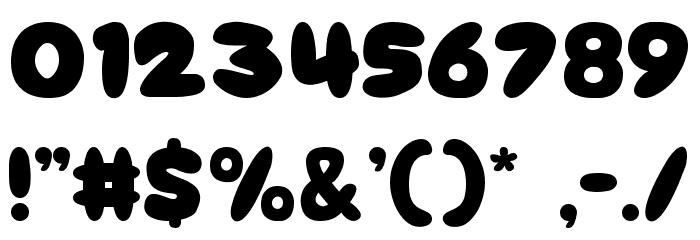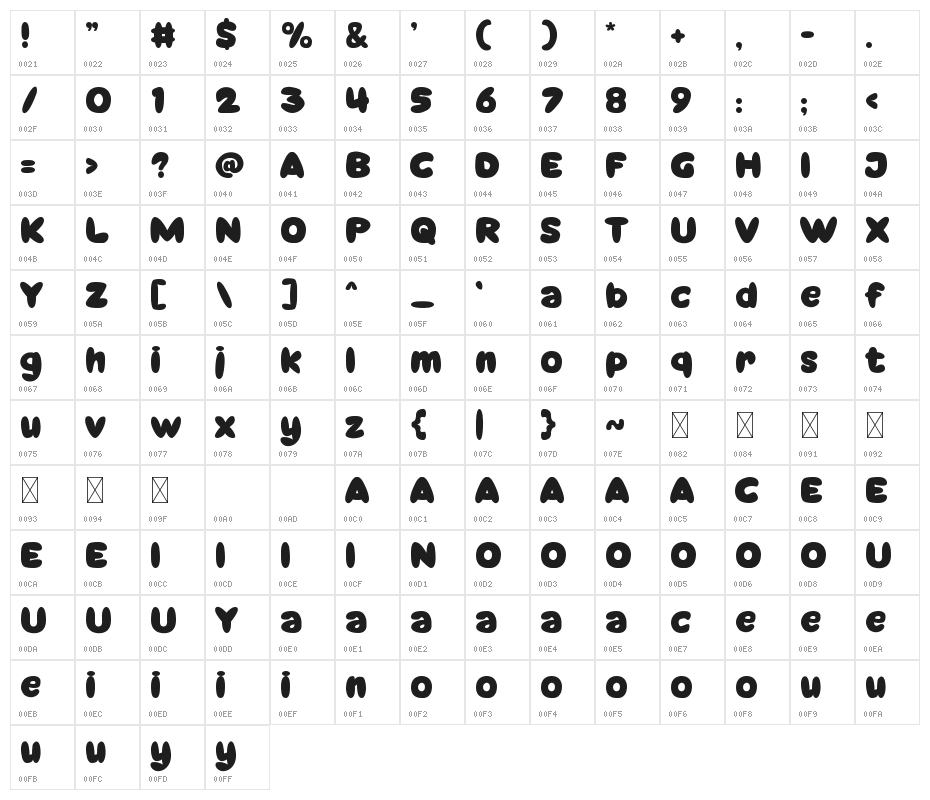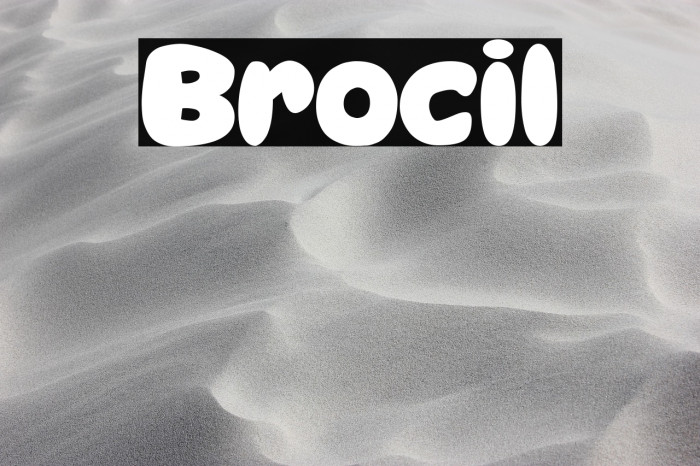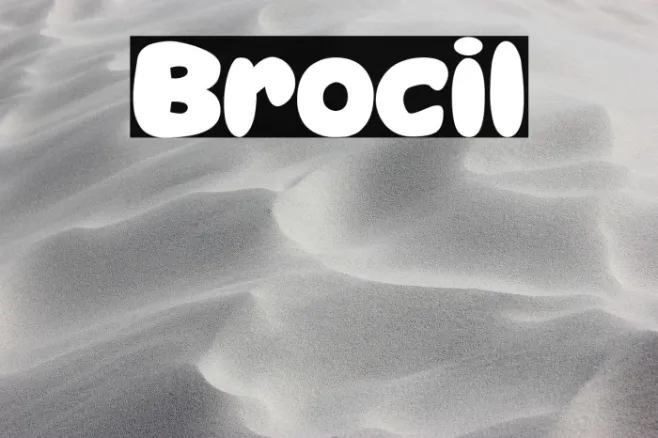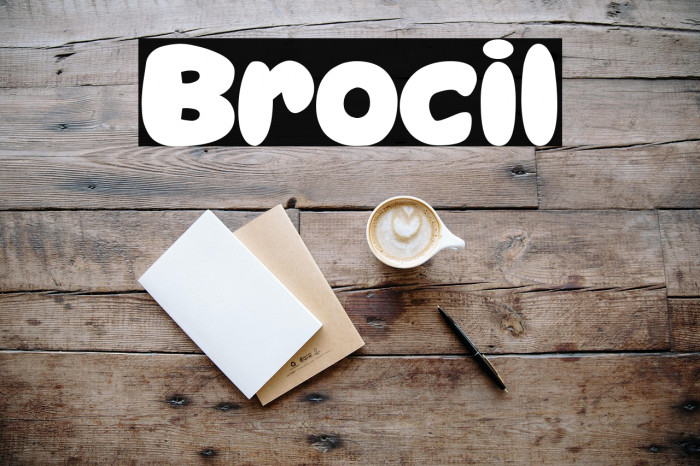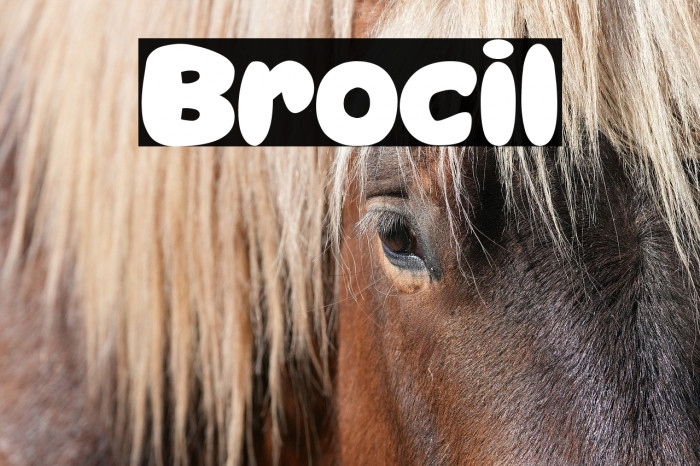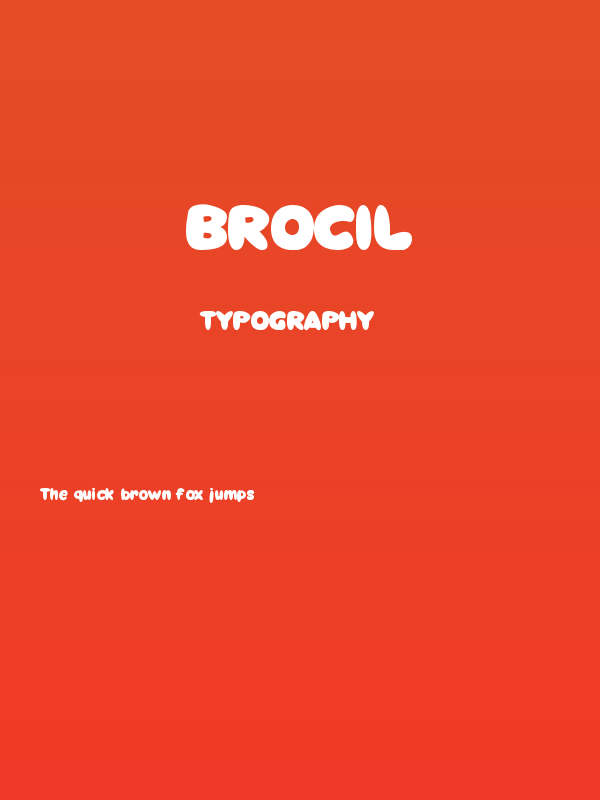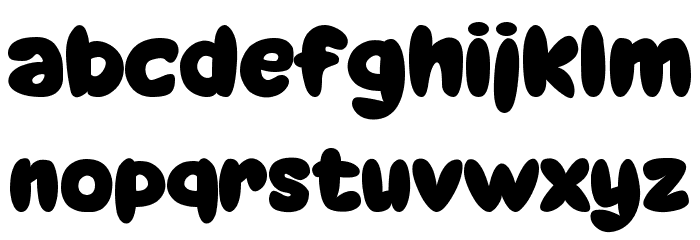
Brocil Font
Brocil Description
This font features a bold and playful design with rounded edges and a bubbly appearance. The characters are thick and have a consistent weight throughout, giving them a strong presence on the page. The rounded forms and smooth curves create a friendly and approachable feel, making it ideal for informal and creative projects. The numerals and special characters maintain the same playful style, ensuring consistency across all text elements. This font is particularly well-suited for designs that aim to convey fun, energy, and a sense of whimsy.
| Overall Style | Playful, Fun, Energetic |